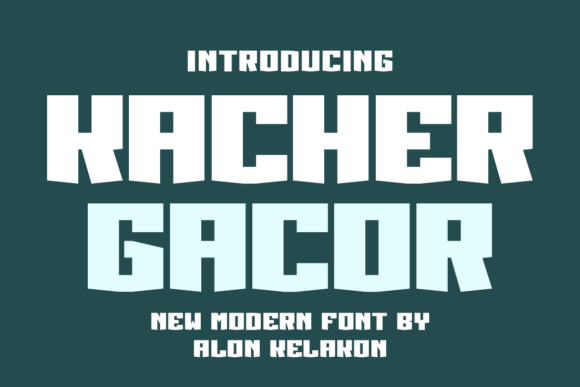
Kacher Gacor Font: The Ultimate Font for a Lasting Impression
In the realm of typography, Kacher Gacor Font stands tall as a sans serif masterpiece, captivating hearts with its unique charm. Its sharp and refined strokes evoke a sense of elegance and sophistication, leaving an indelible mark on any design it adorns.
Journey into the world of Kacher Gacor and discover a font that speaks volumes. Its carefully crafted characters dance across the page, inviting readers to embark on an unforgettable journey. Whether you're a seasoned designer or just starting out, Kacher Gacor is your perfect companion, ready to transform your creative visions into reality.
With Kacher Gacor, you hold the power to craft goodbye letters that resonate deeply, conveying heartfelt emotions with each stroke. Its distinctive style lends a touch of grace and sincerity to your words, ensuring they leave a lasting impression on the recipient's heart.
Kacher Gacor's versatility knows no bounds. Its bold presence commands attention in posters and movie titles, while its delicate touch adds a hint of charm to logos and album covers. Unleash your creativity and explore the endless possibilities that await you with this extraordinary font.
Step into the spotlight with Kacher Gacor, the font that sets you apart from the ordinary. Embrace its allure and watch as your designs blossom into works of art. Let Kacher Gacor be your muse, guiding you towards typographic excellence.